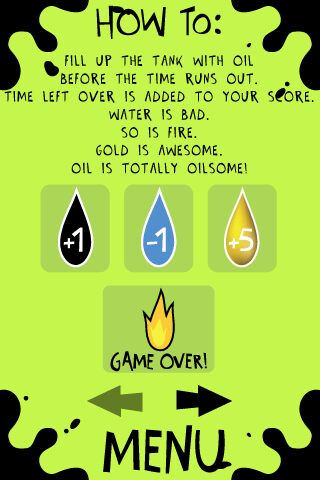
Totally Oilsome by Erik Jacob Jeddere-Fisher is a free hand-drawn display font with tall uneven capitals and a loose, lively cut-paper silhouette. Its strokes shift in width and angle, with broad round forms set against sharply tapered letters, so the alphabet feels deliberately improvised rather than mechanically geometric.
A poster is its most convincing setting, since the tilted shapes can supply both wording and graphic movement at once. They also suit album covers and packaging for offbeat food brands. On a magazine cover, the irregular capitals can turn a cover line into part of an illustration rather than neutral typography.
This is the font used in the iPhone game Totally Oilsome.